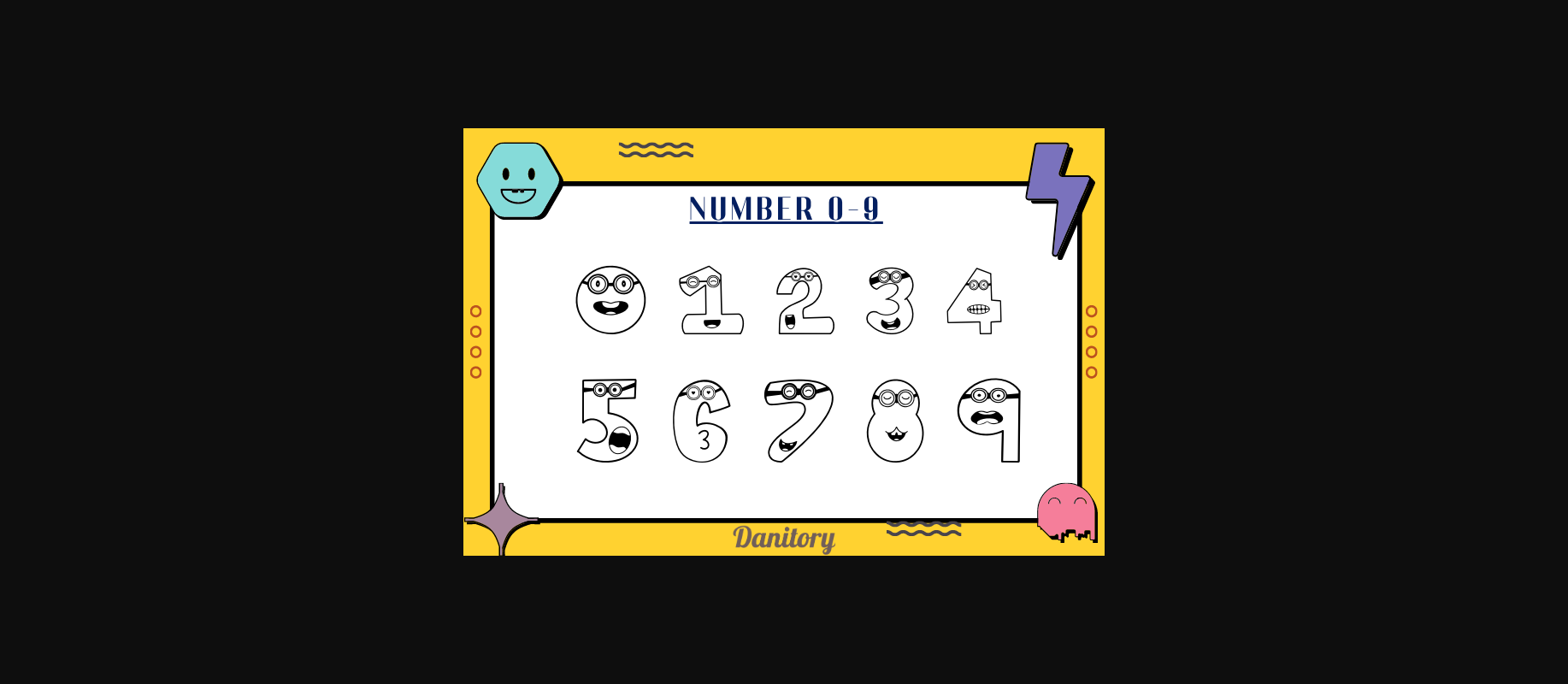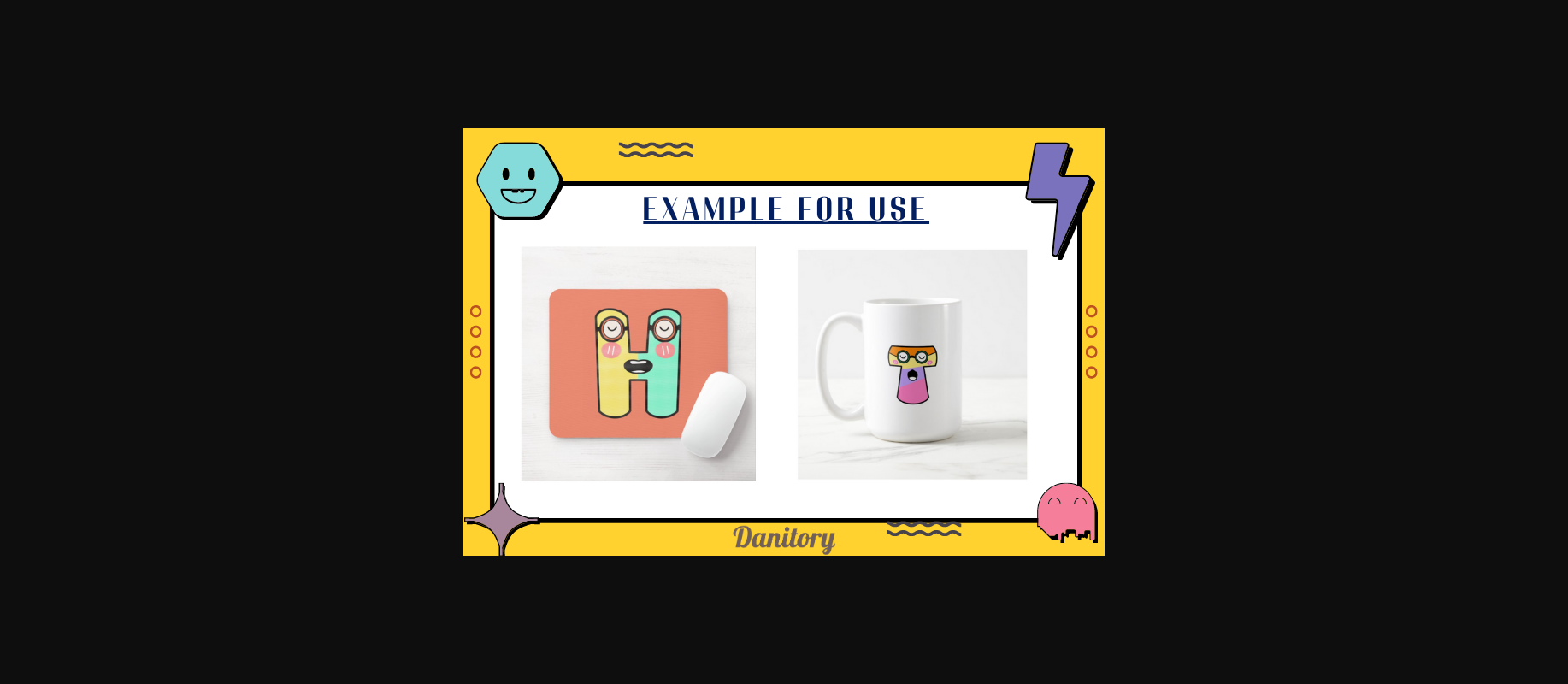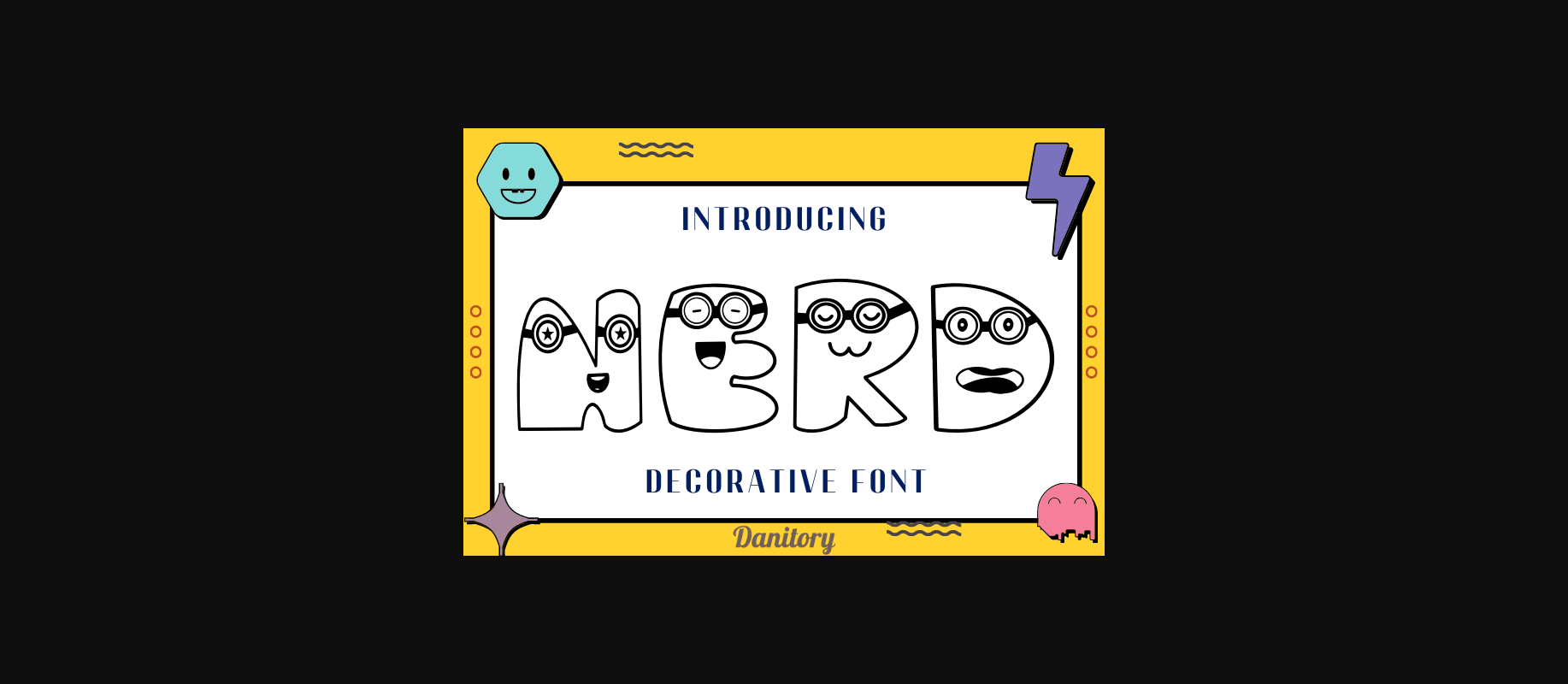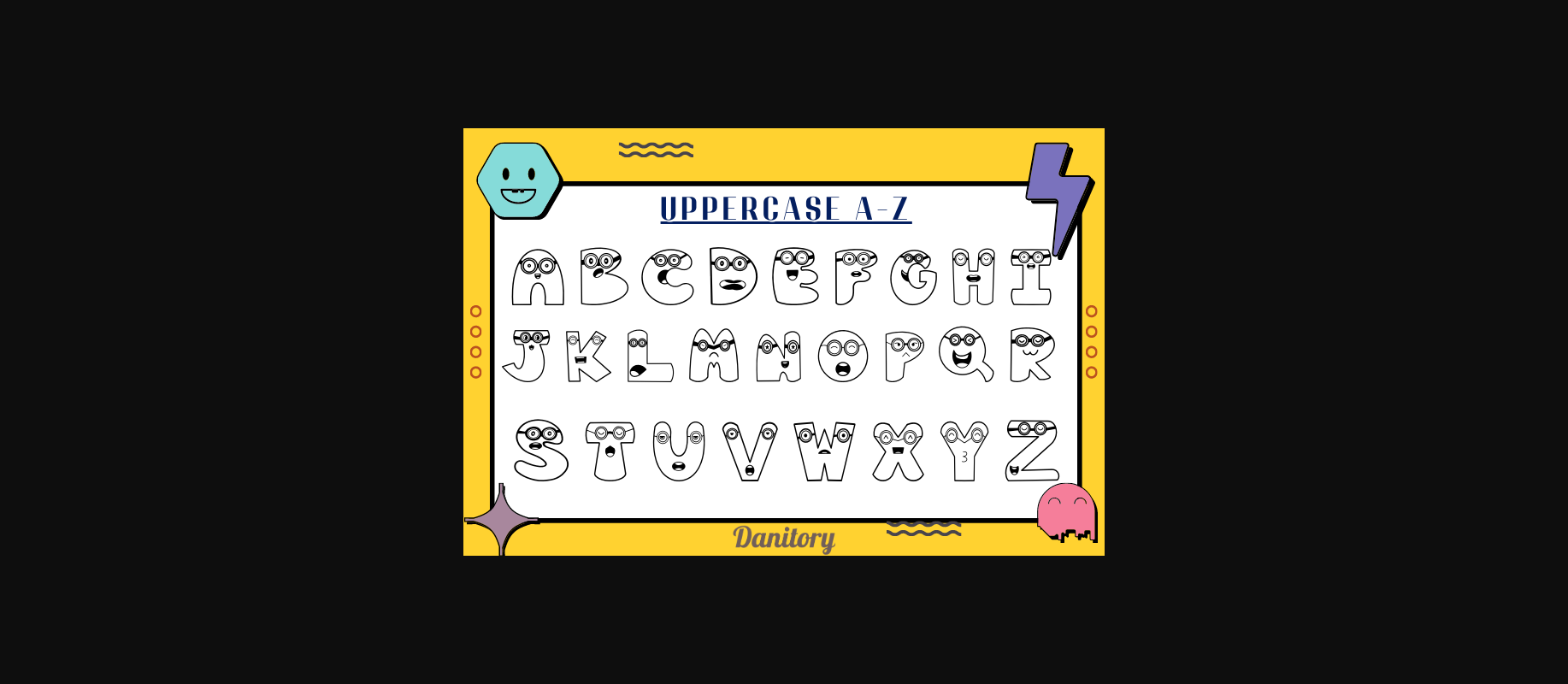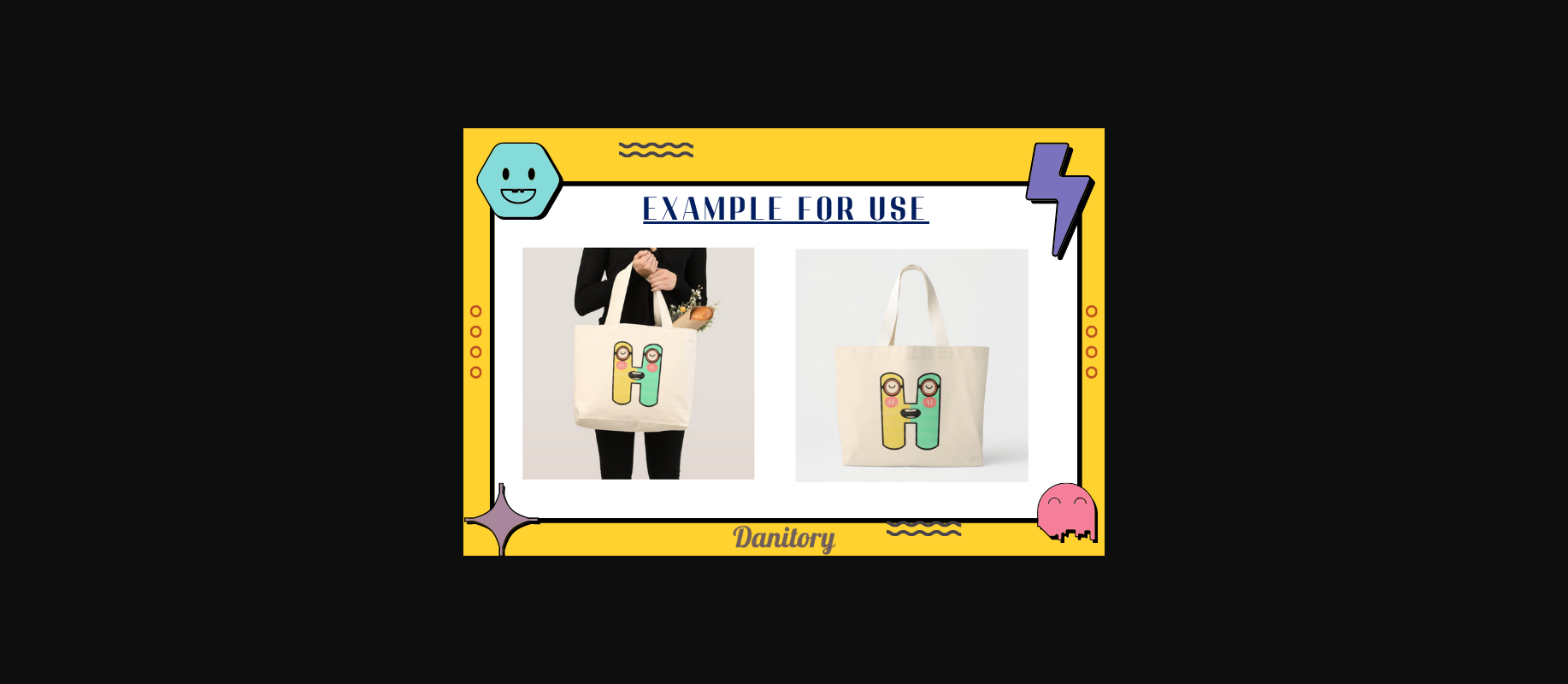
Nerd Font
About Nerd Font
Nerd is a glasses font. with a funny and cute face To make your designs look modern and fun, this font is suitable for a variety of uses. cartoon style font which is suitable for children, boys, and kindergarten Used for decorating worksheets, teaching aids, birthday cards, and other suitable products.